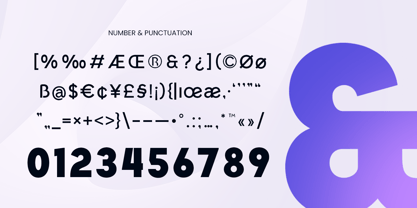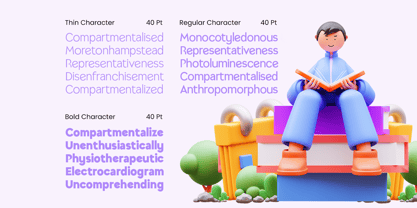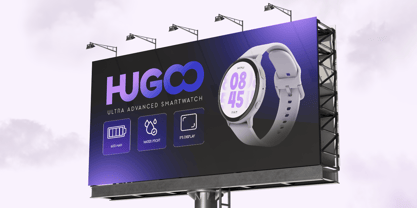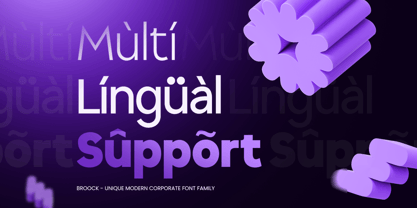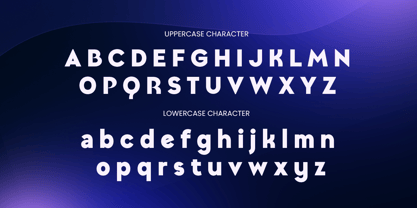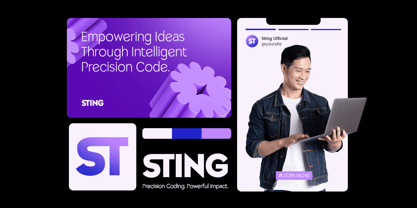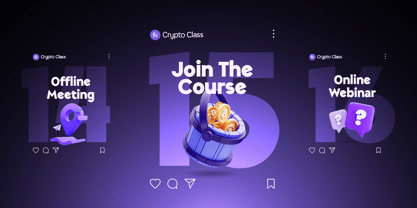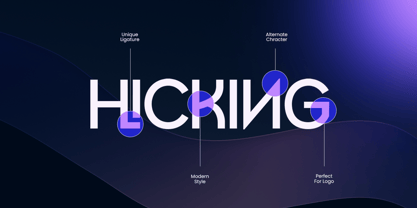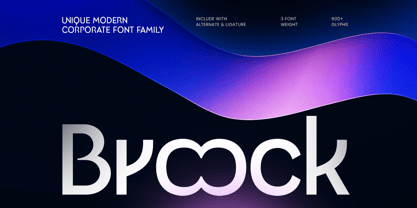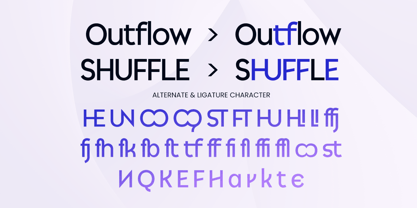
Broock is a unique modern corporate font family designed for professional branding and polished communication. With clean geometry, balanced spacing, and a contemporary tone, Broock delivers clarity and credibility—ideal for business identities that need to look sharp, modern, and trustworthy.
Built for versatility, Broock works seamlessly across brand identity systems, presentations, websites, UI design, and corporate documents. Use it for logos, headlines, marketing materials, and editorial layouts where legibility and a confident modern feel matter most.
Whether you’re crafting a startup identity, a corporate rebrand, or a sleek digital product, Broock helps you create consistent, high-impact typography across both print and digital environments.
Broock – Modern Corporate Family Features
Modern corporate font family with a unique, clean personality
Ideal for business branding, logos, company profiles, and presentations
Designed for UI/UX, web layouts, and professional marketing materials
Clear readability for headlines, body text, and signage applications
Includes uppercase, lowercase, numerals, and punctuation
Versatile styling for consistent brand systems across media
OpenType features for flexible, professional typography
Multilingual Support Afrikaans, Albanian, Asu, Basque, Bemba, Bena, Breton, Chiga, Cornish, Dutch, English, Estonian, Filipino, Finnish, Friulian, Galician, German, Gusii, Indonesian, Irish, Italian, Kabuverdianu, Kalenjin, Kinyarwanda, Luo, Luxembourgish, Luyia, Machame, Makhuwa-Meetto, Makonde, Malagasy, Manx, Morisyen, North Ndebele, Nyankole, Oromo, Portuguese, Quechua, Romansh, Rombo, Rundi, Rwa, Samburu, Sango, Sangu, Scottish Gaelic, Sena, Shambala, Shona, Soga, Somali, Spanish, Swahili, Swedish, Swiss, and more.